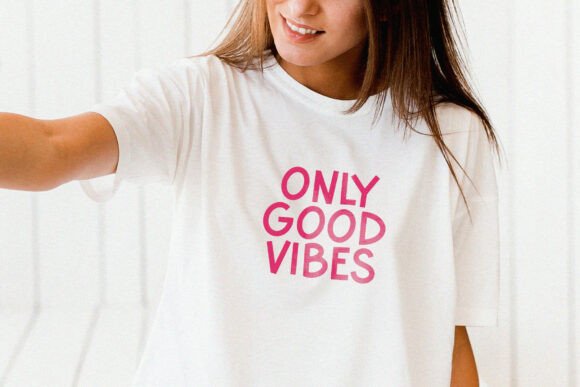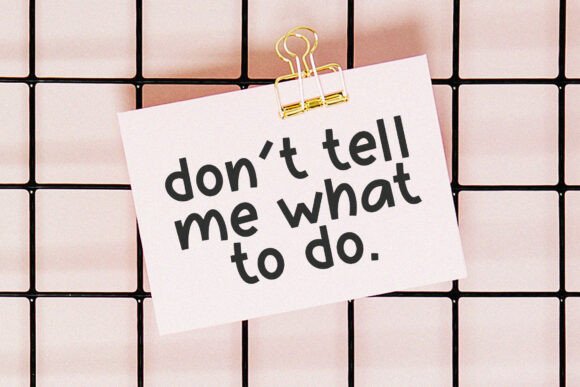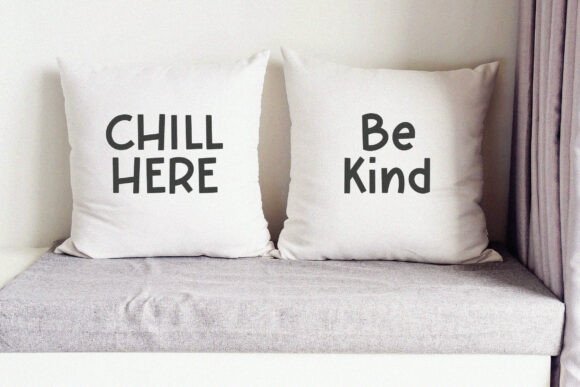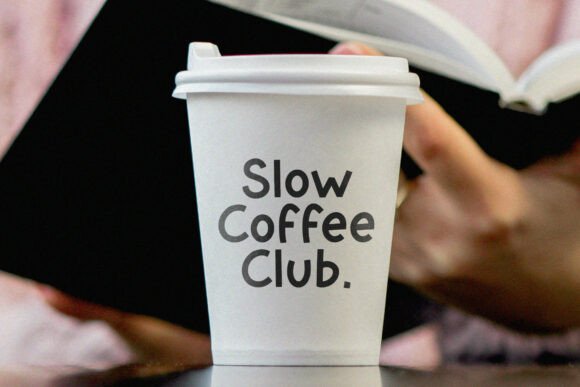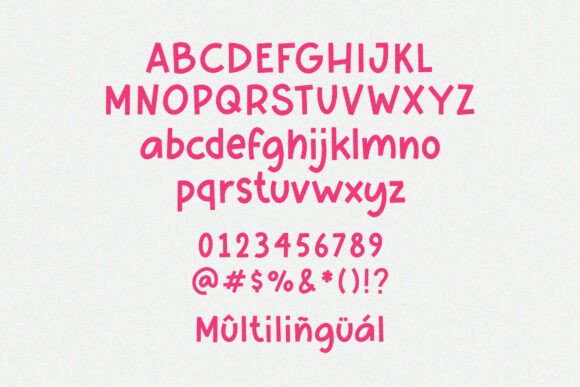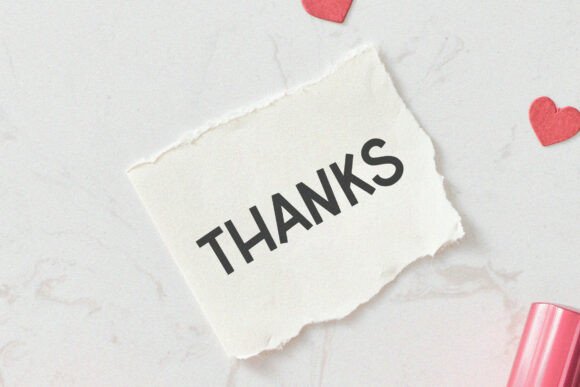
Introducing Dreamy Garden: A Modern Handwritten Font by Timurtype Studio
Are you looking for a font that can add a touch of elegance and whimsy to your creative projects? Look no further than Dreamy Garden, a modern handwritten font introduced by Timurtype Studio. This beautiful font combines smooth, flowing curves with a natural, effortless style, making it perfect for a wide range of design applications.
A Soft and Stylish Look for Any Project
Dreamy Garden is a versatile font that can be used to create a variety of designs, from branding and logos to invitations, social media graphics, and quotes. Its soft, handwritten aesthetic adds a charming touch to any project, making it perfect for designers and crafters who want to create unique and eye-catching designs.
Key Features of Dreamy Garden Font
- Modern Handwritten Style: Dreamy Garden is a modern handwritten font that blends elegant curves with a natural flowing style.
- Multilingual Support: This font supports multilingualism, making it perfect for designers who work with clients from around the world.
Dreamy Garden is a versatile font that can be used for a wide range of design applications, including:
- Branding: Create unique and memorable brand identities with Dreamy Garden’s elegant, handwritten style.
- Invitations: Add a touch of whimsy and elegance to your invitations with this beautiful font.
- Social Media Graphics: Create eye-catching social media graphics with Dreamy Garden’s smooth, flowing curves.
- Logos: Design unique and memorable logos with this modern handwritten font.
- Quotes: Add a touch of elegance and sophistication to your quotes with Dreamy Garden’s beautiful, handwritten style.
Why Choose Dreamy Garden Font?
There are many reasons why designers and crafters should choose Dreamy Garden Font for their creative projects. Here are just a few:
- Unique and Eye-Catching: Dreamy Garden is a unique and eye-catching font that can help your designs stand out from the crowd.
- Elegant and Sophisticated: This font adds a touch of elegance and sophistication to any design, making it perfect for high-end brands and luxury products.
- Versatile: Dreamy Garden is a versatile font that can be used for a wide range of design applications.